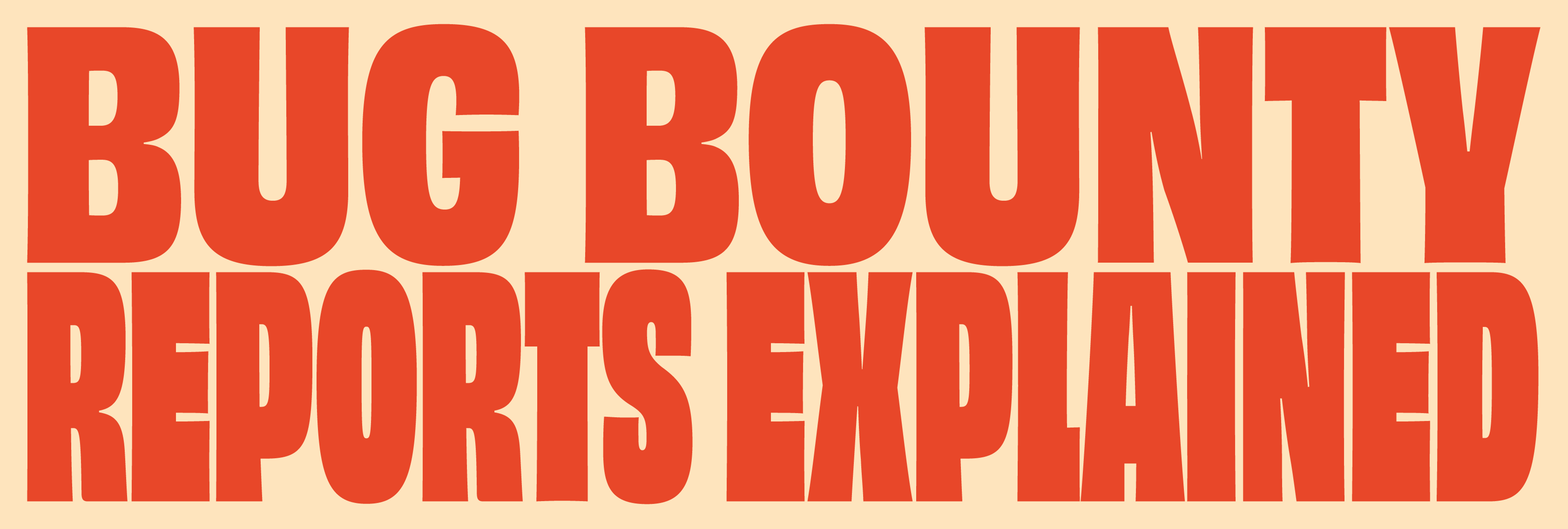
Bug Bounty Reports Explained is the largest YouTube channel in its niche – Bug Bounty Hunting. brief emphasised systemising visual language across several digital outlets. Primary concerns were the YouTube channel and the new website. During workshops with the client, we decided to steer away from the dominating "hacker" aesthetic in this sector. we settled on a new tagline "Bug bounty, no BS*". The primary concern with the brand book was to design it in a way understandable to a person without extensive typographic and design knowledge. The key asset for a client was the extensive library of MOGRT after-effects modular animations, so the client could freely drop transitions and call-to-action buttons for video production. For the website design, I hired a digital designer who helped to produce it under my creative direction. Other Assets included social media templates and profile pictures with backgrounds.
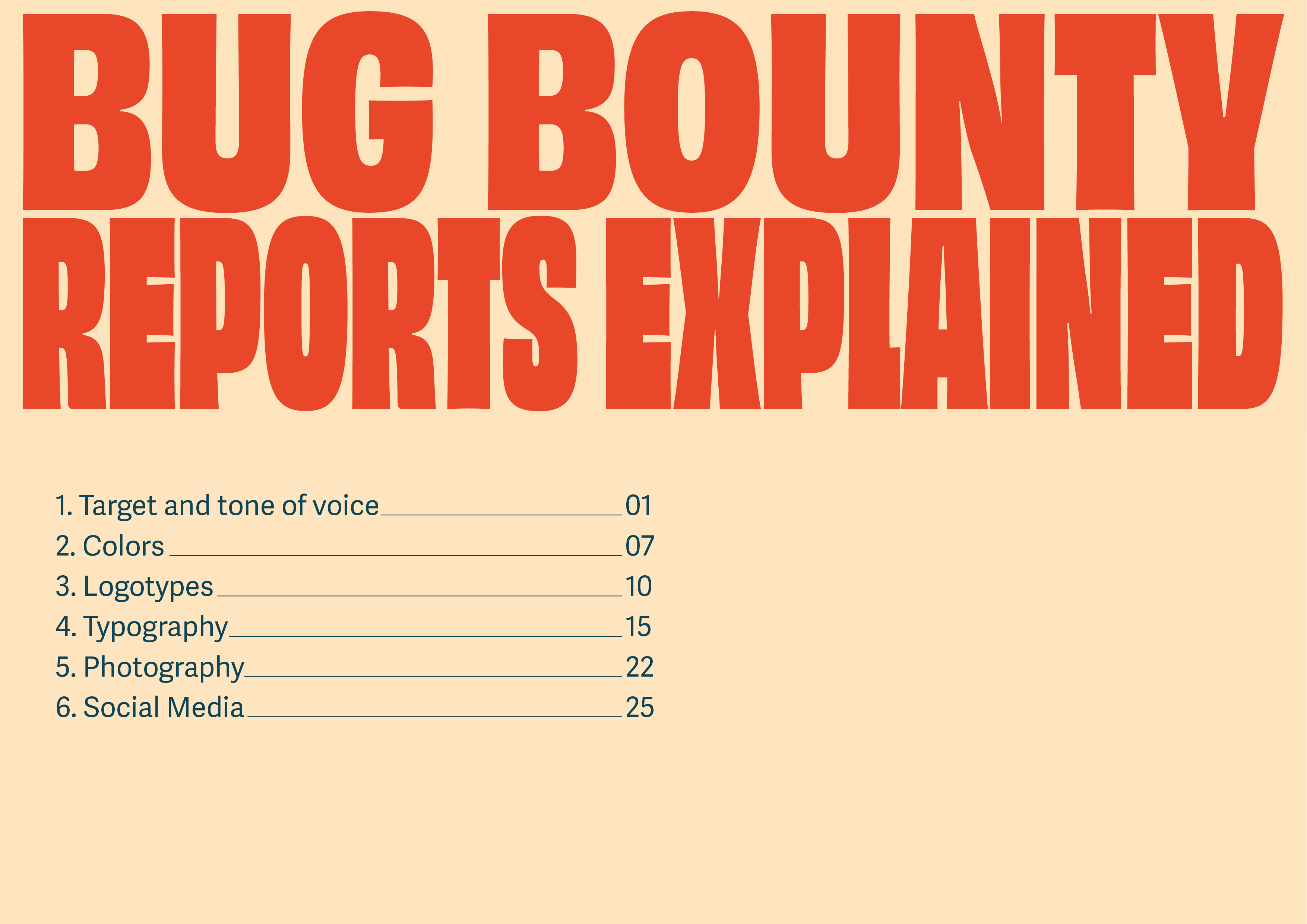
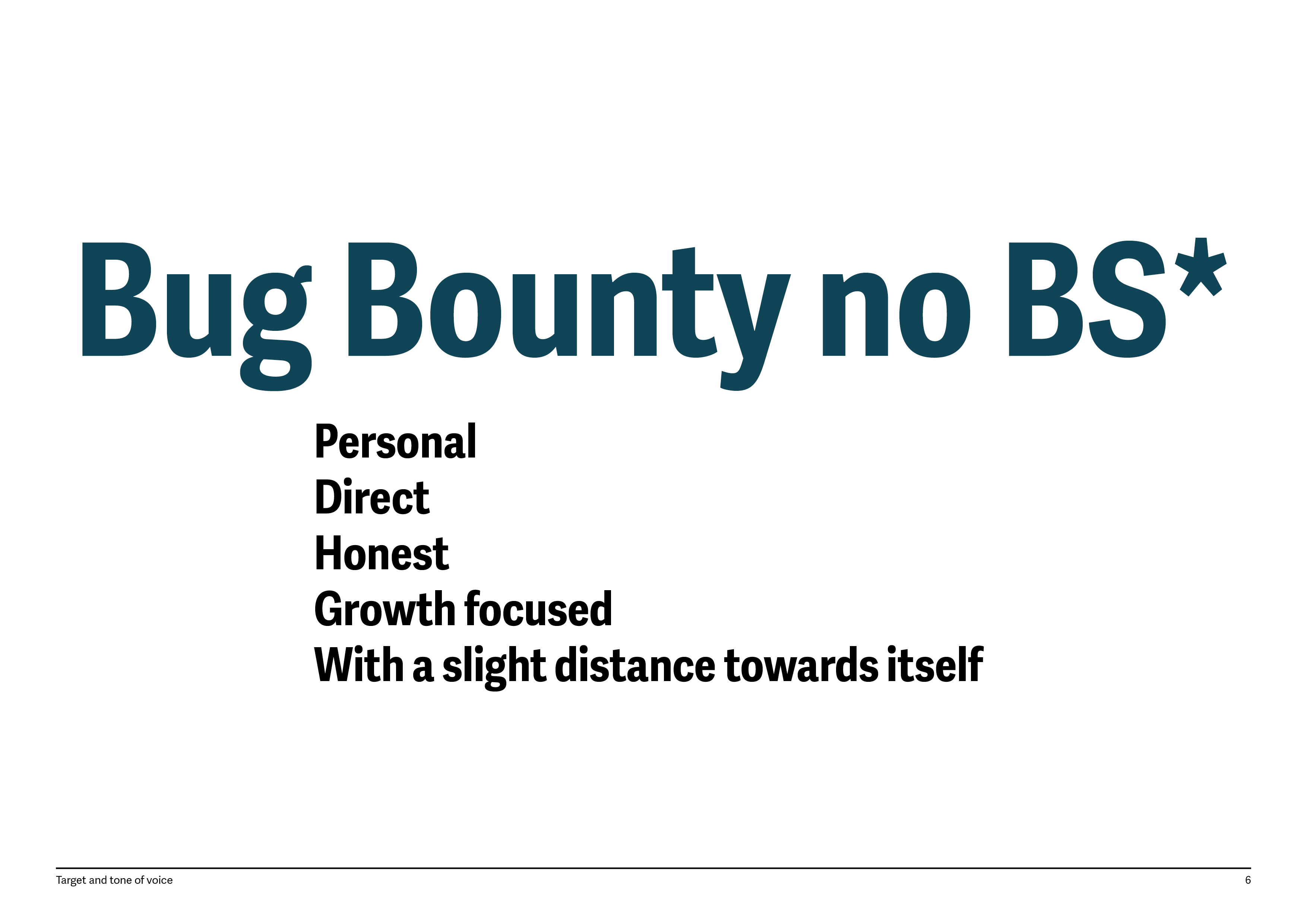
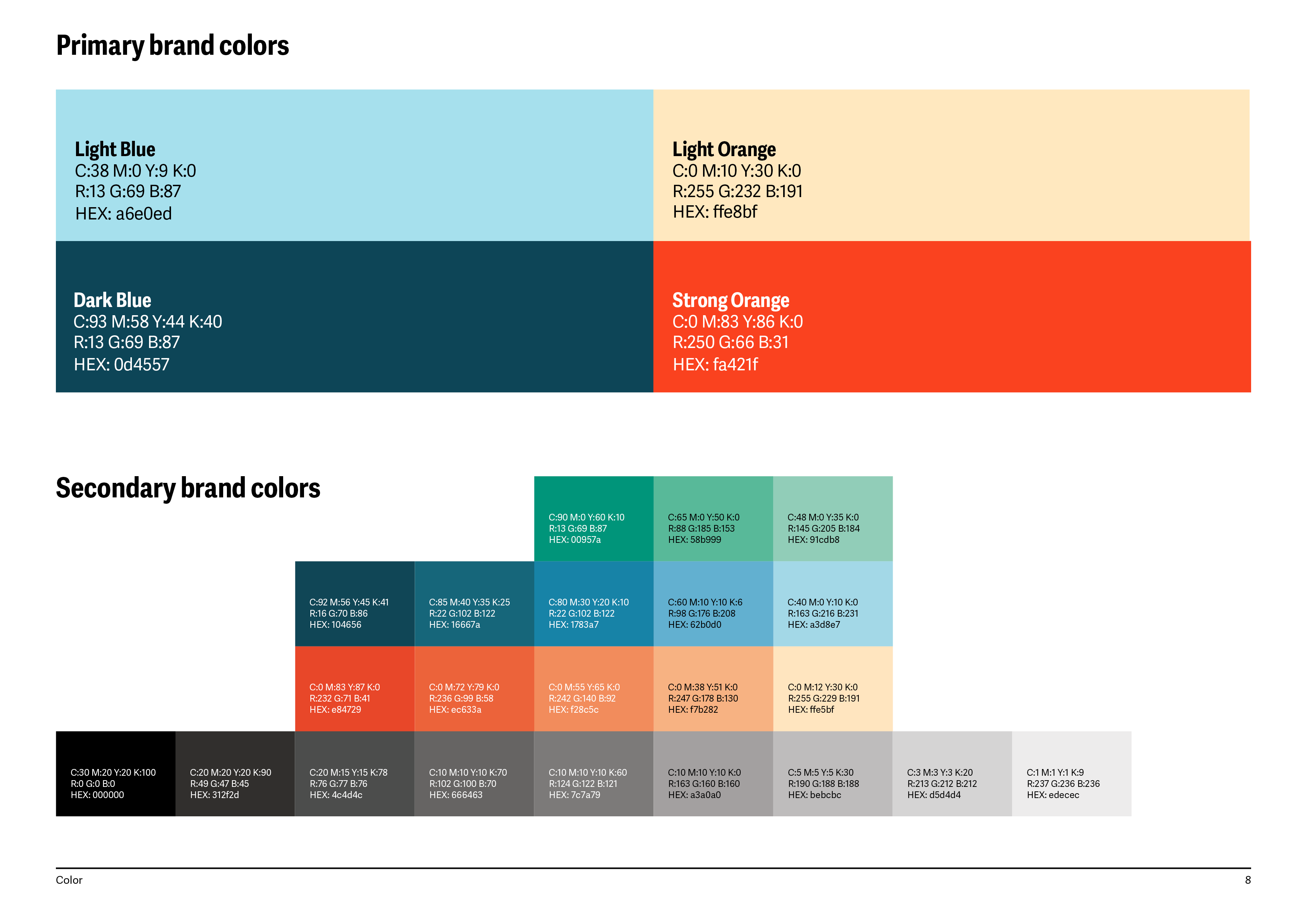
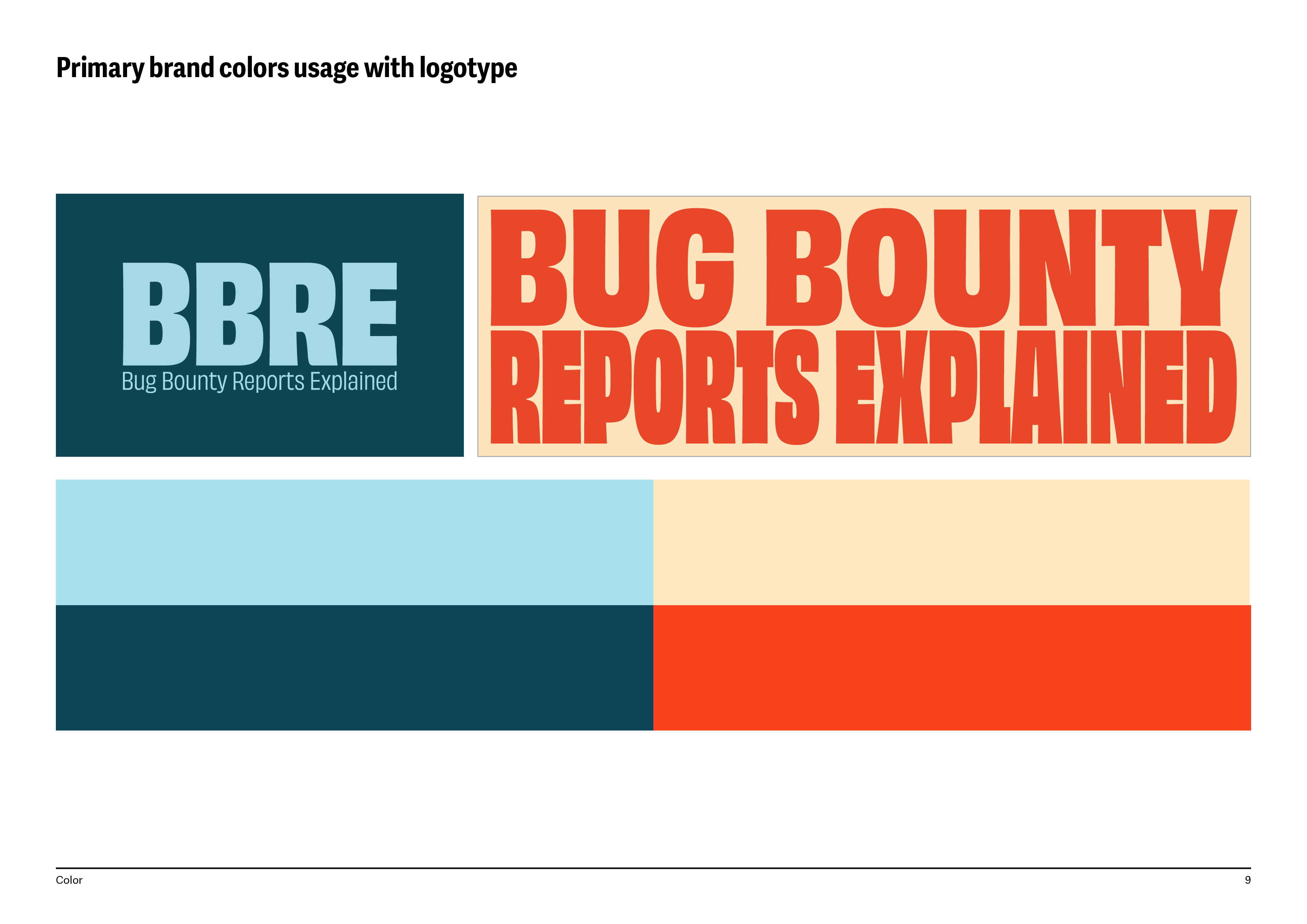
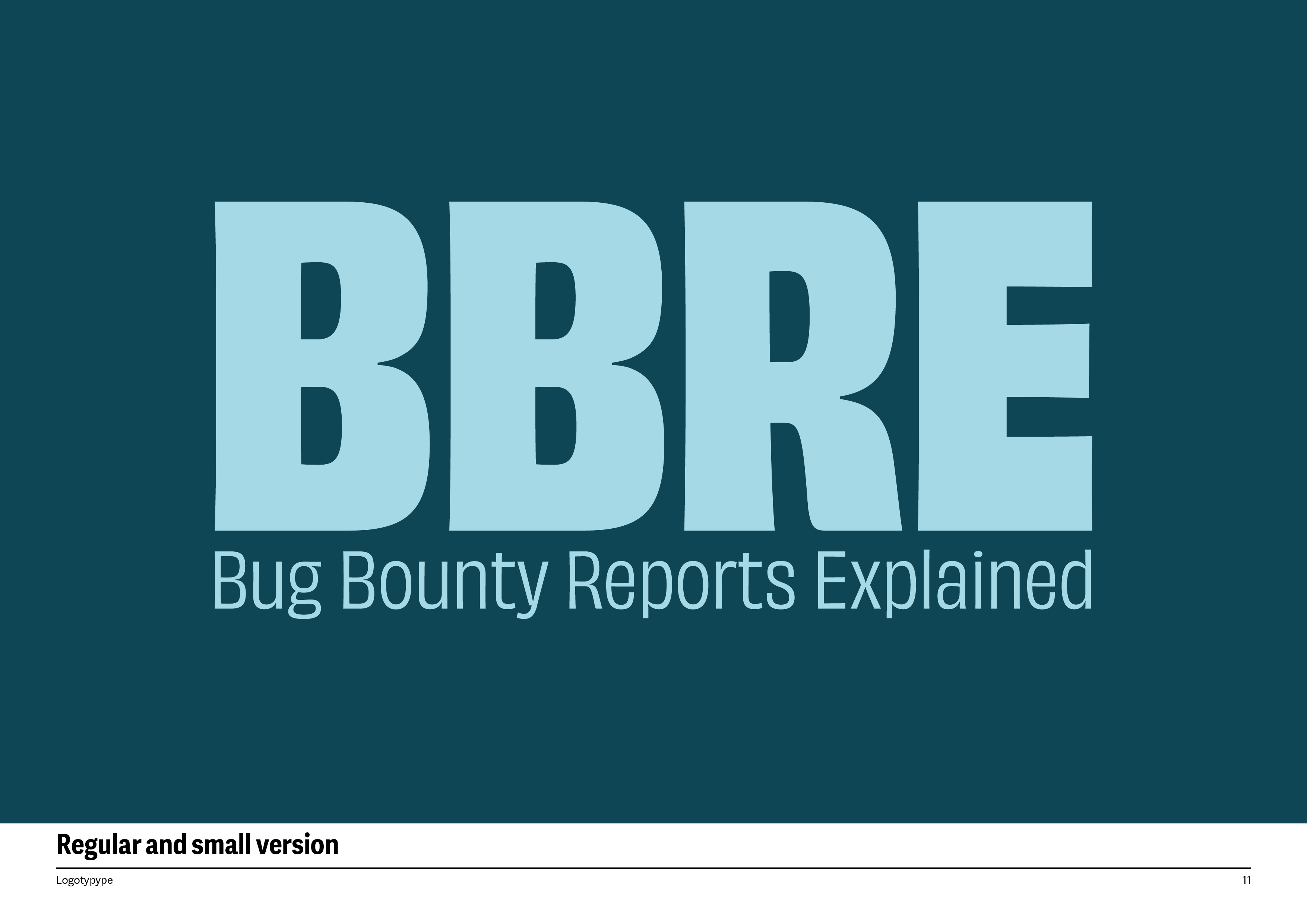
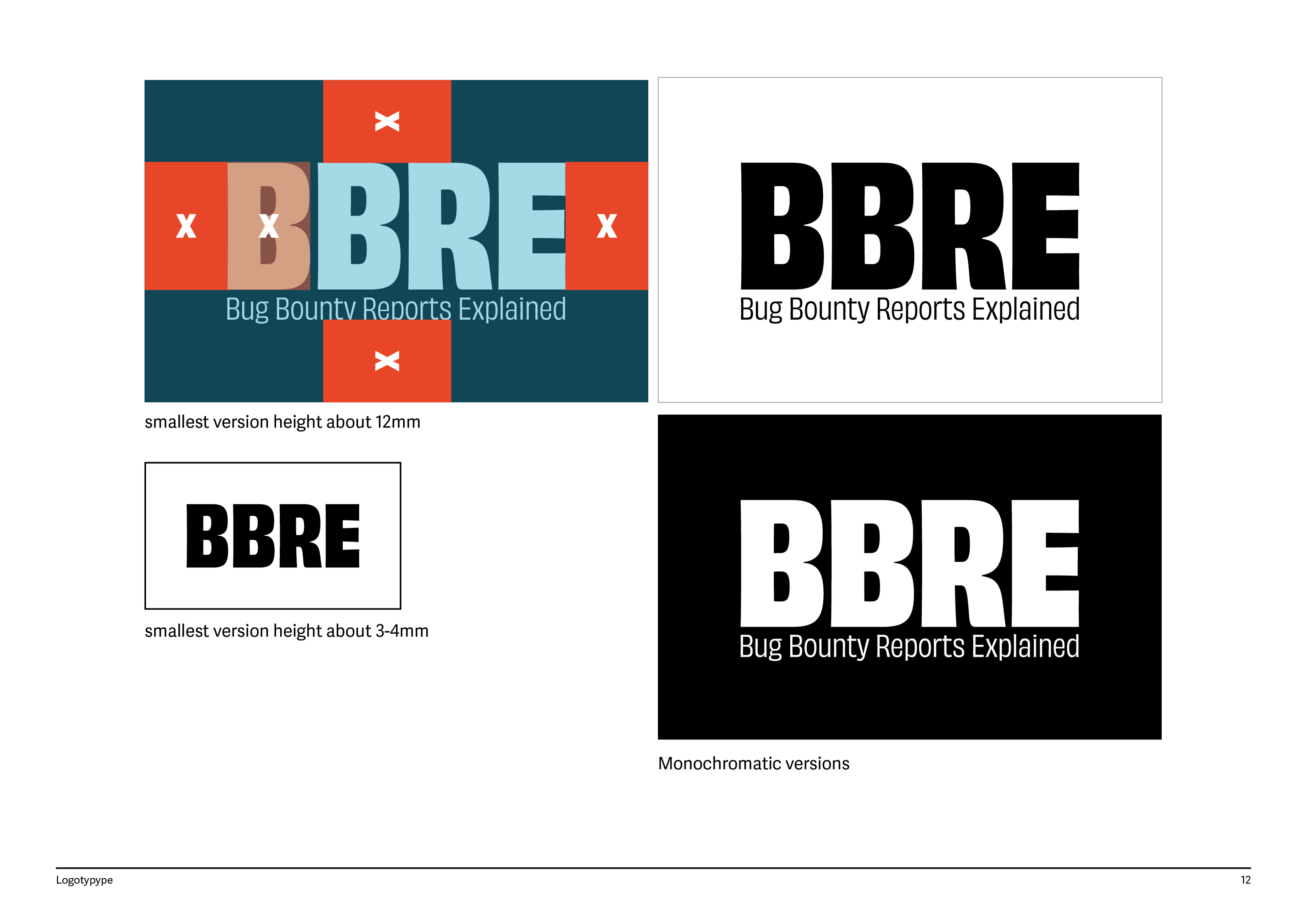
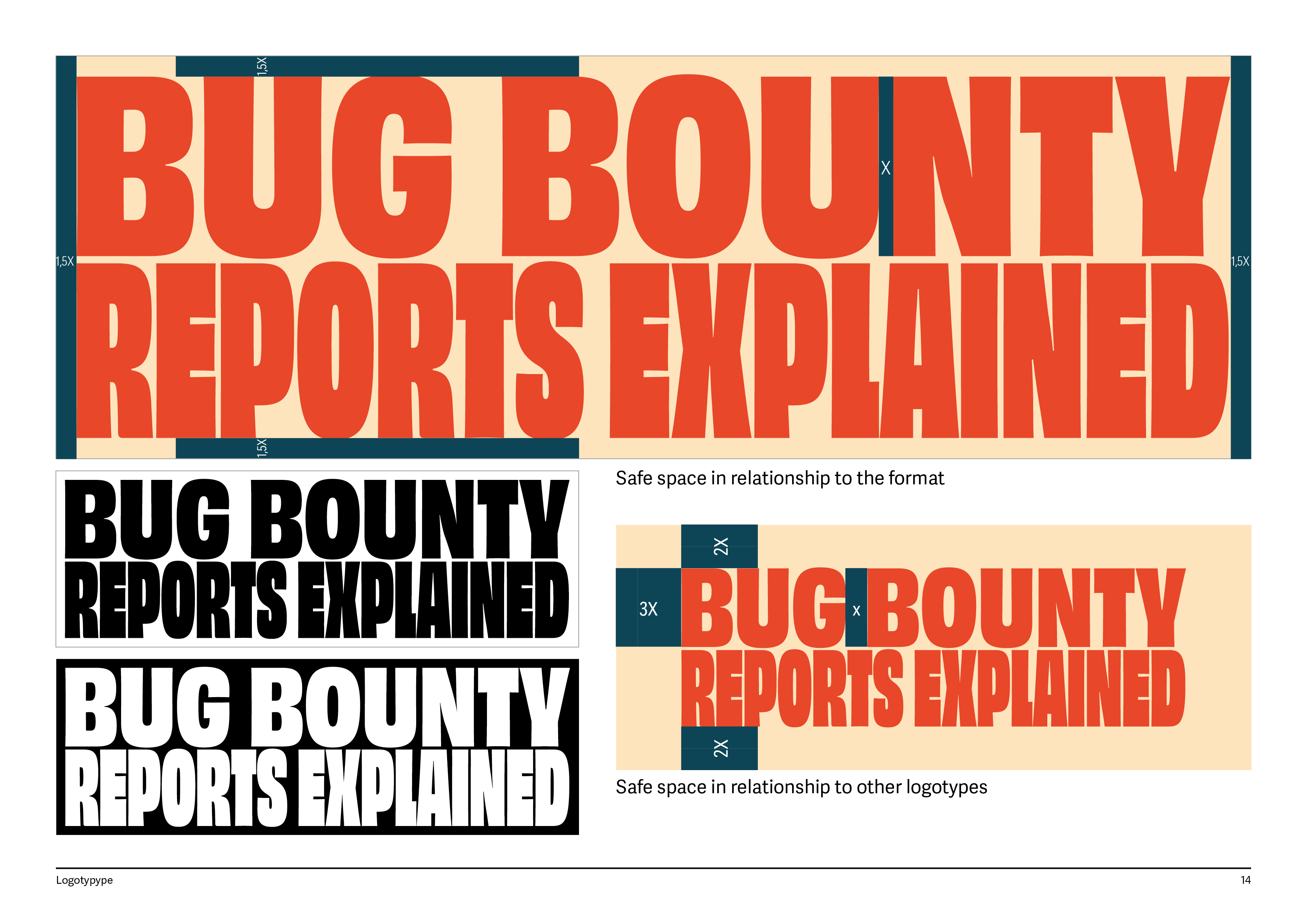
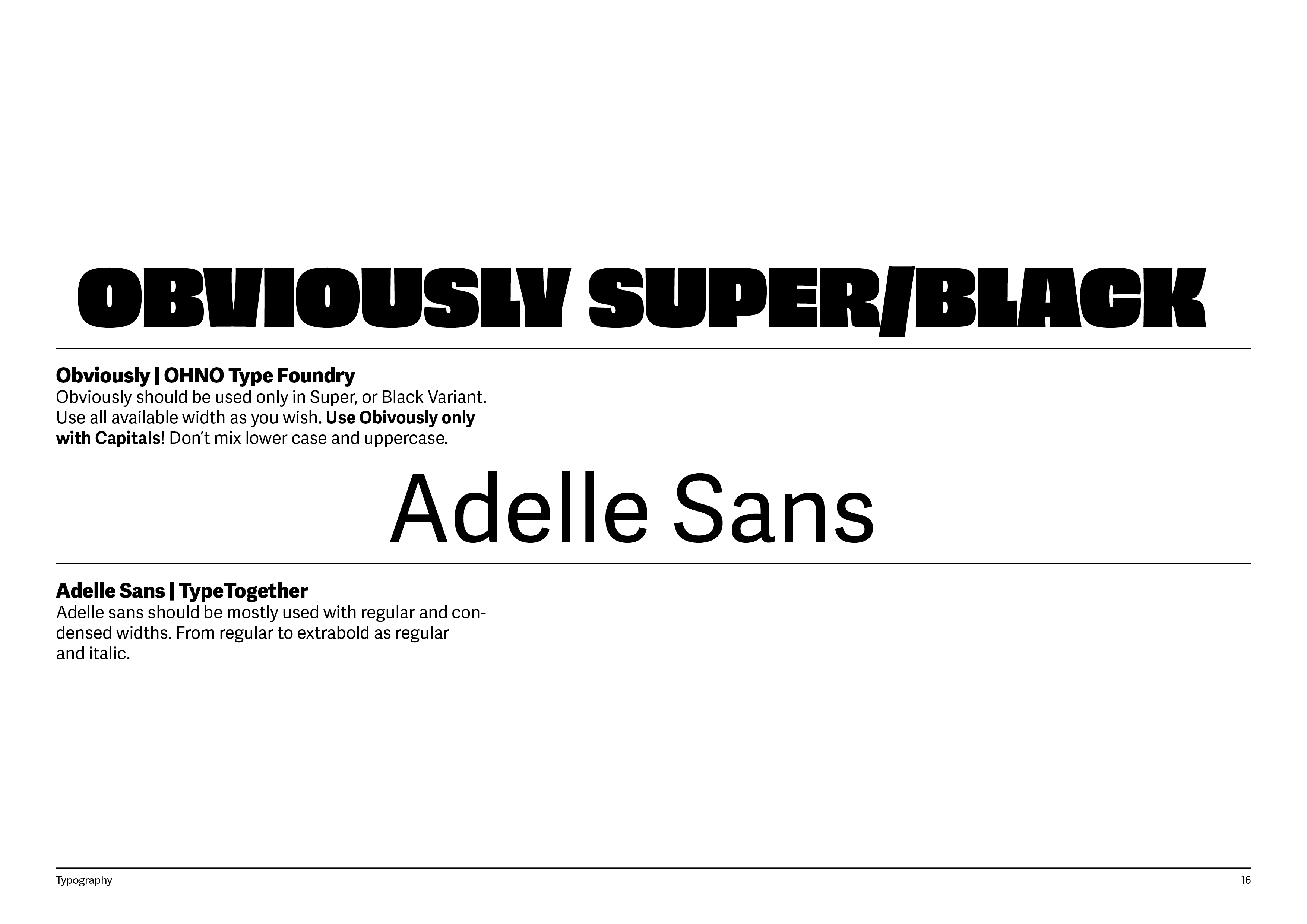
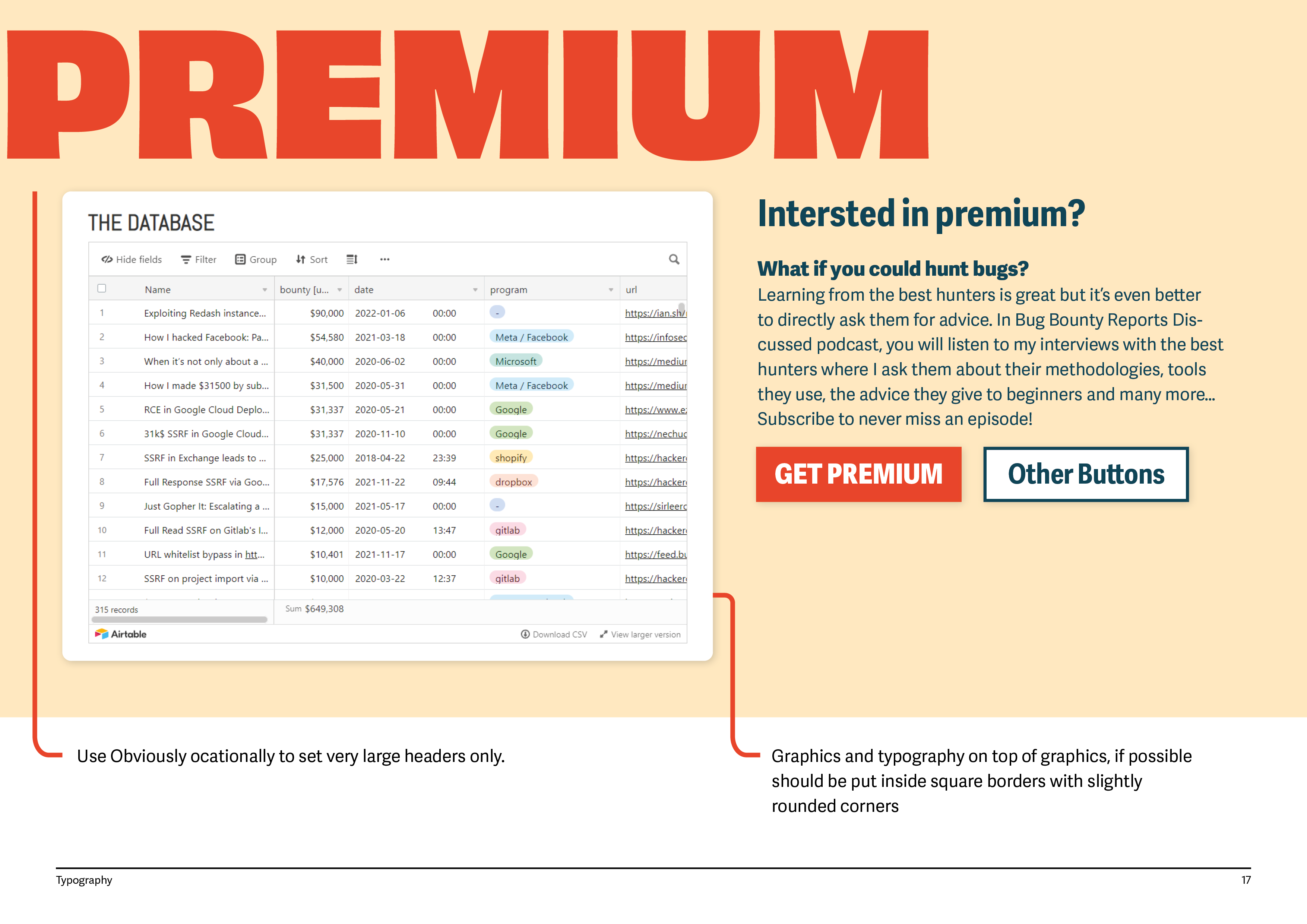
Youtube chanel Intro and Outro.
CTA, buttons, and other animated video elements.
Chapter card, transition, and code block animated element.
Social Media background and profile picture.